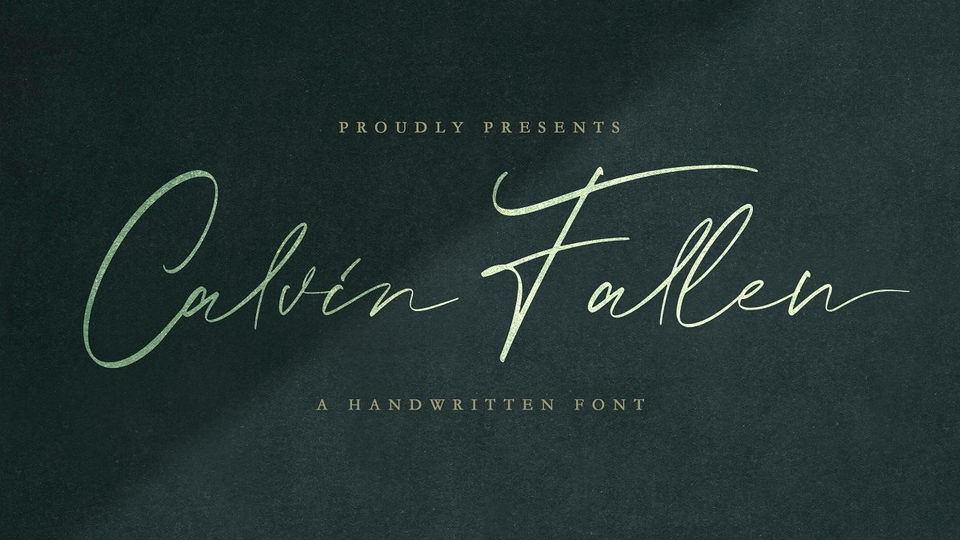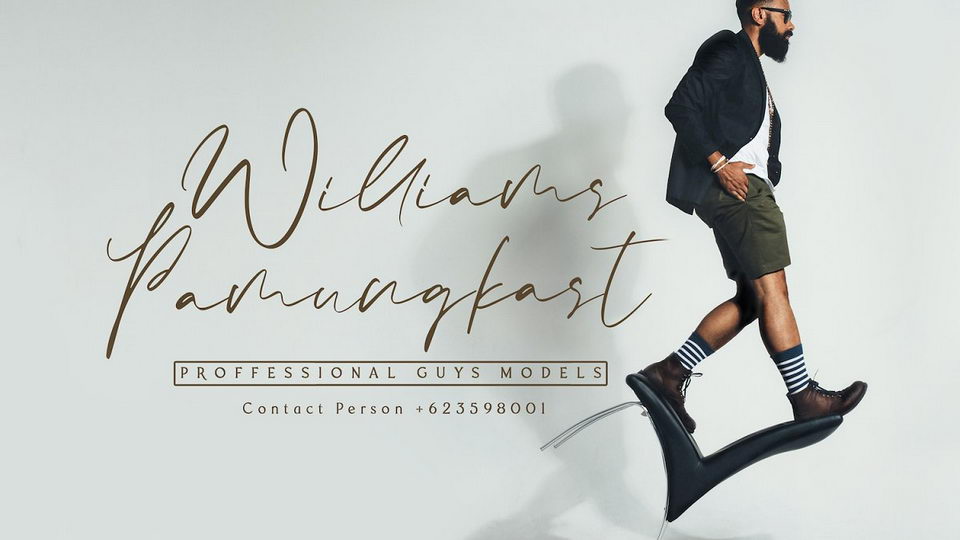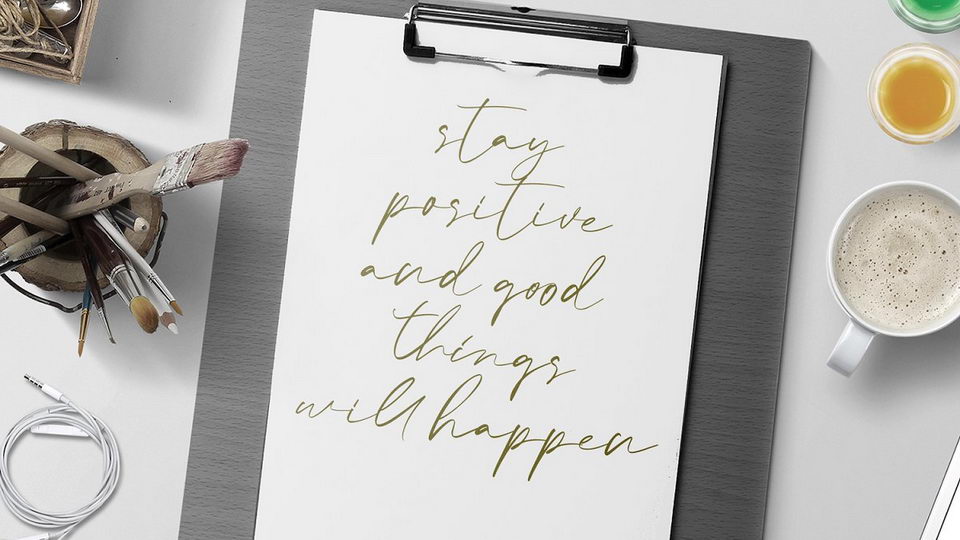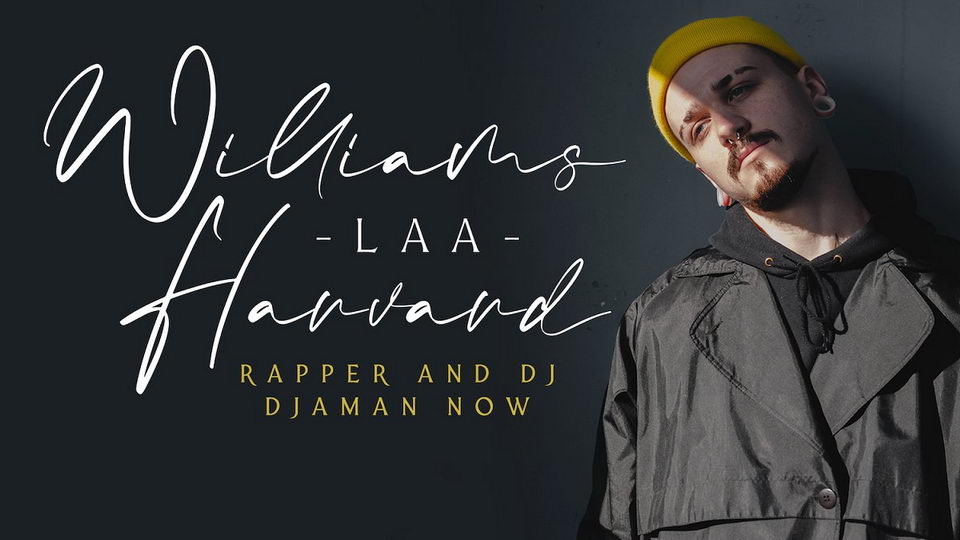
Calvin Fallen is a signature style handwritten script font created with authentic handwritting brush pen.
Calvin Fallen font is perfect for fashion brand, wedding invitation, business card, logo brand, signature, and then calligraphy.